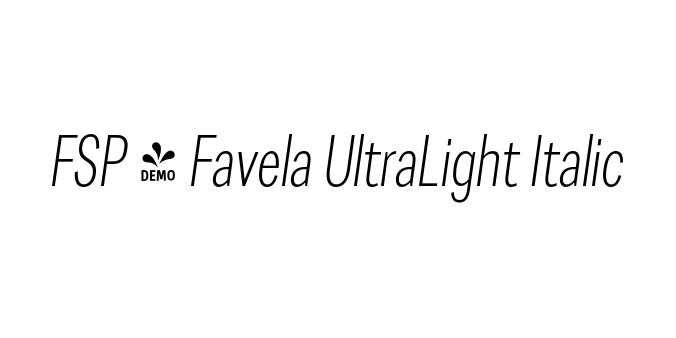
FSP - Favela UltraLight Italic
Designed by Mateusz Machalski
Favela UltraLight Italic is a distinguished member of the extensive Favela font family, meticulously crafted by the renowned designer Mateusz Machalski. This typeface was developed to offer a harmonious blend of geometric structure and contemporary flair, providing designers with a versatile tool for high-end creative projects. The UltraLight Italic weight is particularly striking for its delicate, ethereal appearance, offering a sophisticated slant that adds motion and elegance to minimalist layouts.
Throughout its development, the Favela series was intended to serve as a comprehensive typographic system for branding and editorial design. The UltraLight Italic variant excels in environments where subtlety and refinement are paramount, such as luxury fashion branding, artistic publications, and premium digital interfaces. Its clean lines and wide kerning possibilities make it a favorite for those seeking a modern aesthetic that maintains high legibility even at thinner weights.
FSP - Favela UltraLight Italic Best Uses
Perfect for sophisticated pull quotes and secondary headings in fashion magazines.
Ideal for luxury brand identities that require a delicate, high-end feel.
Excellent for minimalist hero sections and elegant UI elements.
Best suited for premium product promotions and high-concept marketing materials.